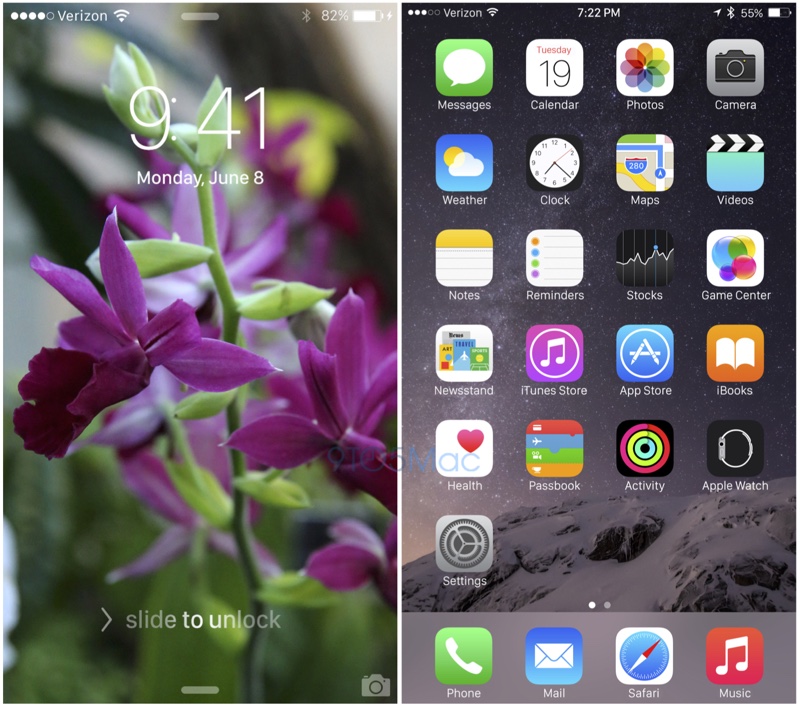
Though iOS 9 and OS X 10.11 are set to debut in three weeks at Apple's Worldwide Developers Conference, we've heard little detail on the content Apple might include in the new operating system updates. Neither operating system is expected to get a major visual overhaul, but there may be one significant design change for both iOS and OS X -- a new system font.
Apple has plans to use the new San Francisco font that was introduced with the Apple Watch to replace the Helvetica Neue font used in iOS 7/iOS 8 and OS X Yosemite, according to a report from 9to5Mac. The font will be used for menu items, app names, and more, throughout the operating systems.
Ever since switching to particularly thin weights of Helvetica Neue in iOS 7, Apple has been chastised for using a font that emphasizes clean lines over readability, and San Francisco is intended to solve this. According to the sources familiar with the decision to move to the San Francisco type face on iOS and OS X, Apple higher-ups also believe that the new look will serve to refresh its familiar operating systems, helping iOS and OS X to avoid becoming stale. However, some Apple engineers have told us that they are not fans of the new font, which may look particularly rough on non-Retina screens.
A condensed sans-serif that's not unlike Helvetica, San Francisco is the first new font Apple has designed in-house in many years. In the 80s and 90s, Apple used several fonts that were created in-house, but the company largely ceased making its own fonts in the early 1990s. Apple's early fonts were also named after major cities, so San Francisco pays homage to those first fonts.
Chicago, New York, Geneva, Monaco, and Cairo are all fonts that were designed by early Apple graphic artist Susan Kare. Kare even designed her own font called San Francisco in 1984, but that now-obsolete typeface looked quite different than the San Francisco Apple introduced in 2014.
San Francisco was created specifically for small displays like the Apple Watch, with extra spacing between each letter to increase legibility on the wrist. Since its debut, there has been speculation that it could be brought to iPhones and Macs in the future, due to its clean look on larger Retina displays in addition to the small display of the Apple Watch. That idea was further reinforced with the introduction of the Retina MacBook, which uses the San Francisco font for the lettering on the keyboard.
We may get our first official glimpse of San Francisco as a system-wide iOS and OS X font on June 8, when Apple is expected to show off iOS 9 and OS X 10.11 for the first time. Not much else is known about the two operating systems, but Apple may be opting to focus more on internal upgrades, improvements, and bug fixes over external changes to further polish features introduced with iOS 8 and OS X Yosemite.
I really gotta admit, that this would look fantastic! I mean, from the very beginning Apple announced the Apple Watch, I thought that font looks more 'luxury' in some way. And it's by far easier to read compared to Helvetica.
Yes, I would love to see the San Francisco font being used in iOS 9!
No!!!
Shoot me now. I hate that font. 😡 It looks to much like Android. What is happening to my Apple, that I love.
Please no. That font would look terrible on iOS. If anything, give us a choice!
You know they won't, which is why this bothers me. On iOS you're stuck with it, but there's ways to fix it on OS X.
Can't say I'm surprised--the new MacBook uses this on the keyboard.
For whatever reason, I hate looking at the Apple Watch font in screenshots but I have to admit that it looks very nice on the device itself.
It definitely helps with readability, especially with the retina HD displays on the iPhone 6 and 6 Plus! So excited for 3 weeks from now at this time!!
I still prefer Lucida Grande, however I think that San Francisco is nicer than Helvetica Neue. Also, it would give a nice consistency between all Apple platforms.
Now, I would like to test San Francisco on Yosemite…
One thing I love on MacRumors is font debates and font rants by font-o-philes. Some of my favourite comments in the last 12 months were on helvetica neuve vs lucida grande. This is going to be an entertaining thread, cant wait.
After the major update containing the new emojis, a new operating system featuring a new font ? Wow, slow down Apple ! Too much innovation, too fast.
I won't be happy with yet another OS X release. How about letting 10.10 mature a little and get back some of that famous OS X rock-solid stability that we haven't seen for years?
I wish Apple were less patriotic about their home state.
I agree, it's really corny.
Clearly there are only two serious font options for Apple to use - Haettenschweiler or Comic Sans (yes, both in Microsoft Office products). If Apple decides to go with something else, I'm through with iOS for good.